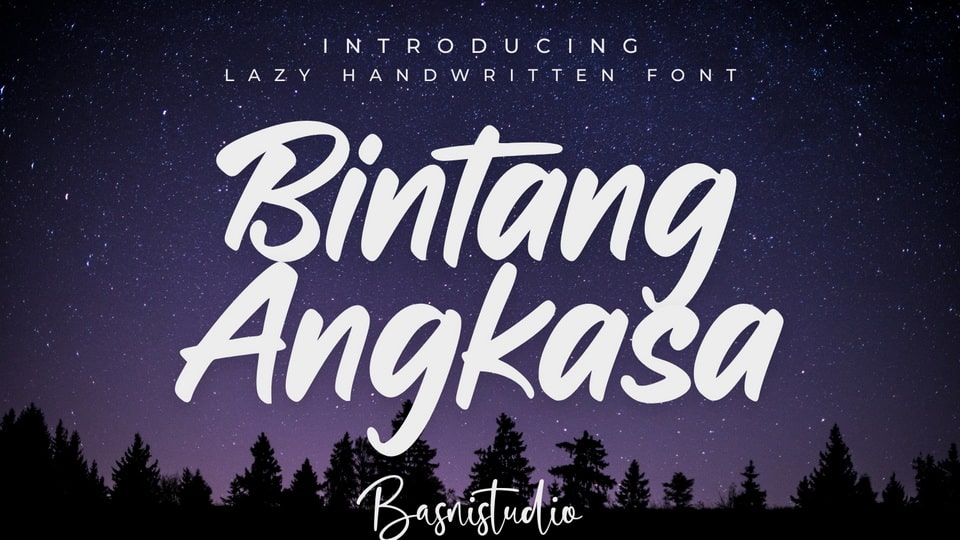
Download Bintang Angkasa font, isn’t just a typeface— it’s attitude in every curve, confidence in every letter with its sharp, stylish, and unapologetically bold.